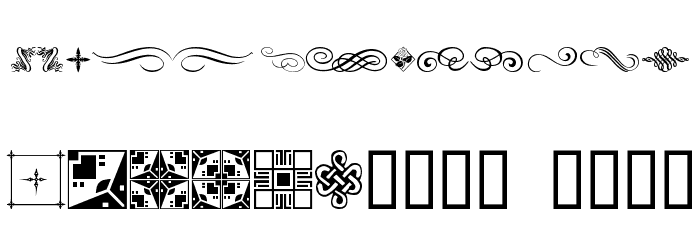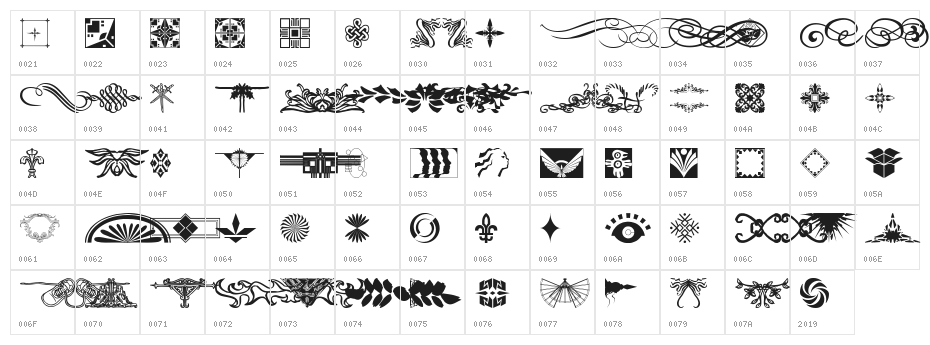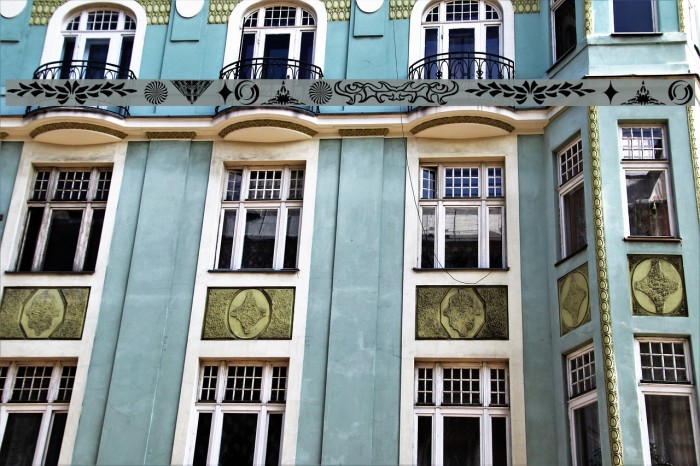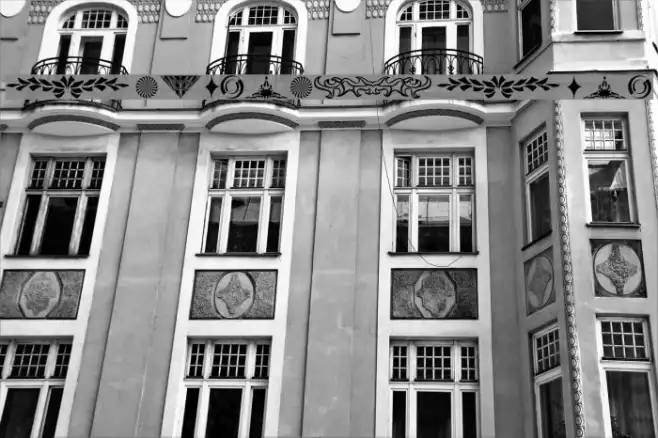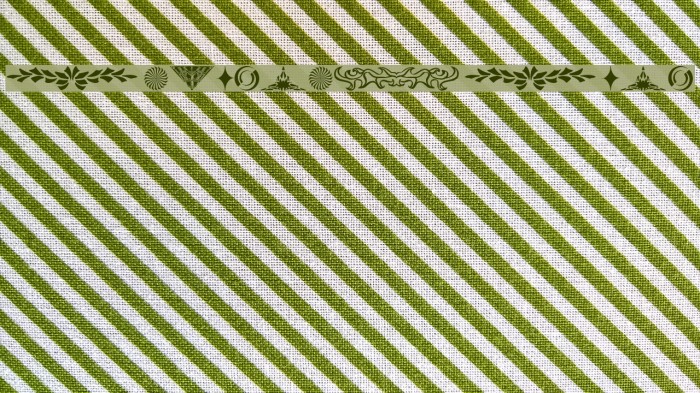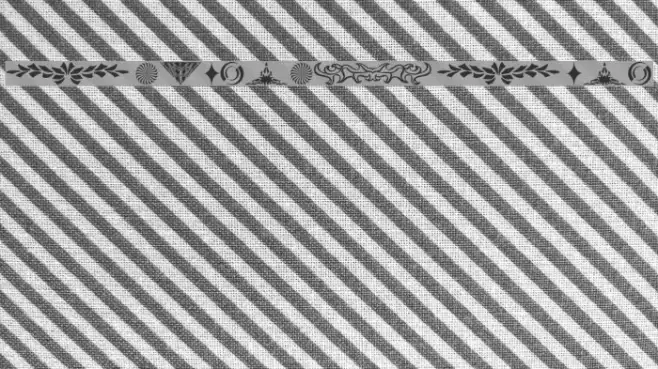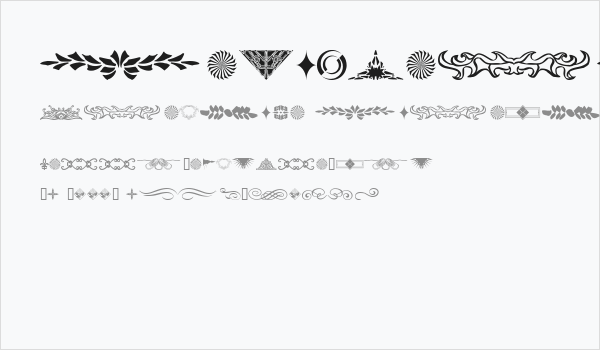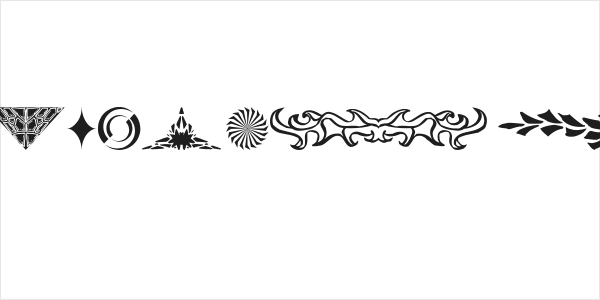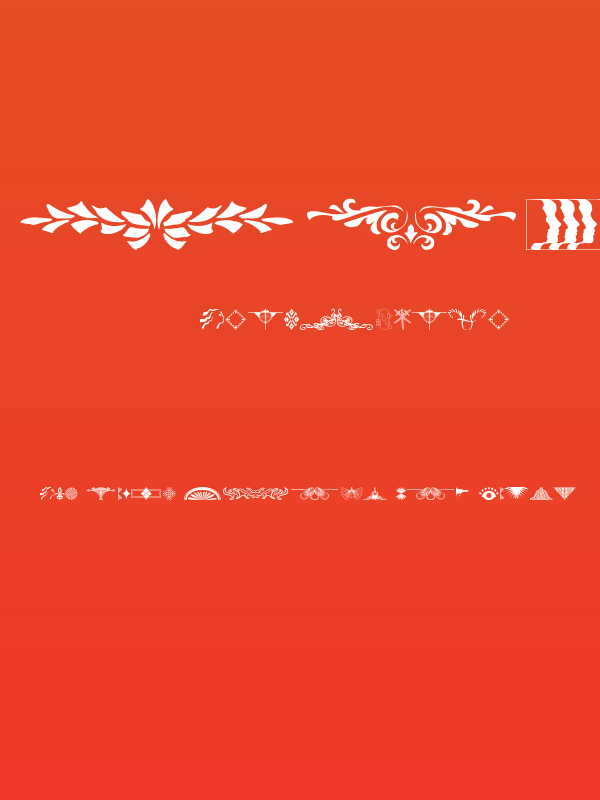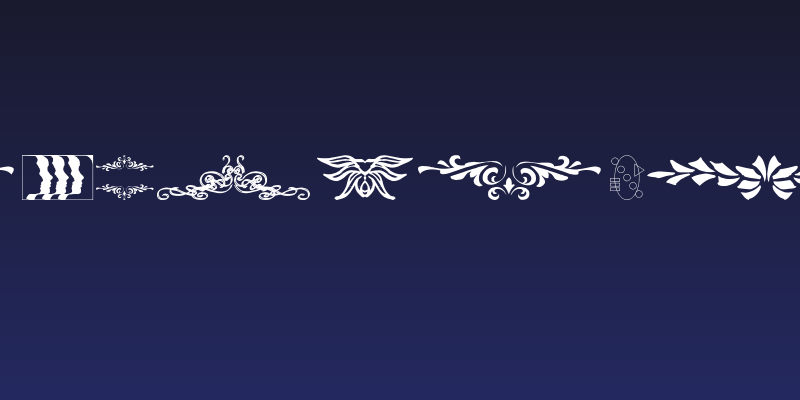
DesignerDing Font
DesignerDing Description
A collection of decorative dingbats and ornamental glyphs featuring flourishes, geometric shapes, floral motifs, and intricate borders, with a mix of bold and delicate line work. The set includes both symmetrical and asymmetrical designs, suitable for embellishing documents or creative projects.
| Overall Style | Decorative, Vintage, Ornamental |
| Use Case | Borders, dividers, embellishments, graphic accents |
| Proposed Projects | Invitations, certificates, book covers, scrapbooking, digital frames, decorative dividers, vintage-style branding. |